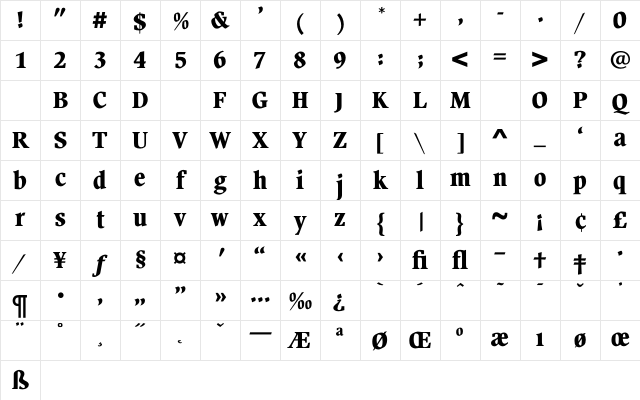
BeckenhamExtraBold Regular
Design Context for BeckenhamExtraBold
BeckenhamExtraBold is a composed and adaptable typeface that performs quietly and consistently across a wide range of design contexts. Its bold stroke weight gives it real presence on the page.